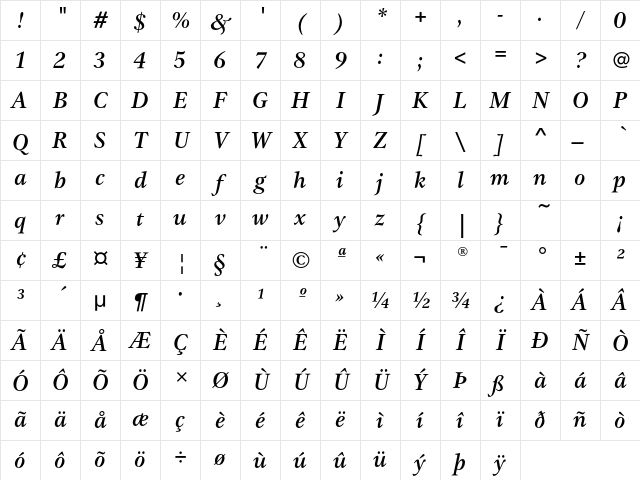
Complete GammaEF MediumItalic glyph index. Displaying only characters natively supported by GammaEF MediumItalic font.
GammaEF is a composed and adaptable typeface that performs quietly and consistently across a wide range of design contexts. The slanted form adds forward momentum and visual energy.